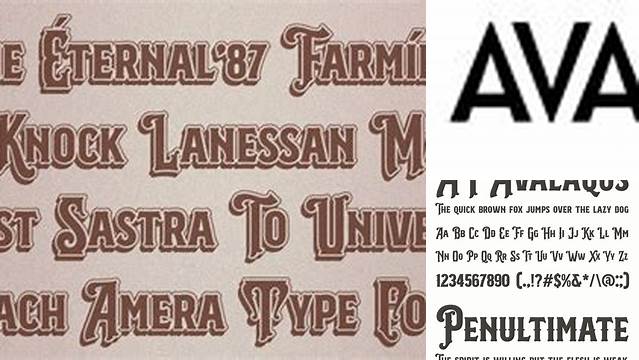
Avalaqus Font: Free Download And Creative Uses
Hey guys! Are you on the hunt for a font that screams uniqueness and adds a touch of artistic flair to your projects? Well, you're in luck! Let's dive into the world of Avalaqus, a decorative font that can seriously elevate your designs. In this article, we'll explore what makes Avalaqus so special, where you can find it for free (yes, you read that right!), and how to make the most of it in your creative endeavors. So, buckle up and get ready to unleash your inner font enthusiast!
What Makes Avalaqus Font Special?
Avalaqus isn't just another font; it's a statement. Its decorative nature means it's designed to catch the eye and leave a lasting impression. Unlike your standard serif or sans-serif fonts, Avalaqus incorporates unique design elements that make it stand out from the crowd. Think of it as the rockstar of fonts – bold, unconventional, and ready to take center stage.
Uniqueness and Style: Avalaqus boasts a distinctive style characterized by its intricate details and artistic flourishes. It often includes swashes, curls, and other decorative elements that add a touch of elegance and sophistication. This makes it perfect for projects that require a unique and memorable typeface.
Versatility: Despite its decorative nature, Avalaqus can be surprisingly versatile. While it shines in headlines and titles, it can also be used in shorter blocks of text to add visual interest. Its adaptability makes it a valuable asset in a designer's toolkit.
Emotional Impact: Fonts have the power to evoke emotions and set the tone for a design. Avalaqus, with its artistic and decorative qualities, can convey a sense of creativity, sophistication, and playfulness. It's a font that speaks volumes without saying a word.
Design Elements of Avalaqus
Let's break down the key design elements that make Avalaqus so captivating:
- Swashes and Flourishes: Many Avalaqus fonts feature elegant swashes and flourishes that extend from the letters. These decorative elements add a touch of sophistication and can be used to create eye-catching designs.
- Intricate Details: Avalaqus often incorporates intricate details within the letterforms themselves. This might include delicate lines, curves, and other decorative elements that add visual interest and depth.
- Unique Letterforms: Avalaqus isn't afraid to break the rules. It often features unconventional letterforms that challenge traditional typographic conventions. This can make it a great choice for projects that require a bold and edgy look.
Conclusion: Unleash Your Creativity with Avalaqus
In conclusion, Avalaqus is a fantastic decorative font that can add a touch of uniqueness and artistry to your designs. Whether you're working on a logo, a poster, or an invitation, Avalaqus can help you create a design that stands out from the crowd. Remember to explore different font repositories, consider licensing restrictions, and experiment with different design techniques to make the most of this versatile typeface. So go ahead, download Avalaqus (or a similar decorative font), and let your creativity soar! Happy designing, guys!